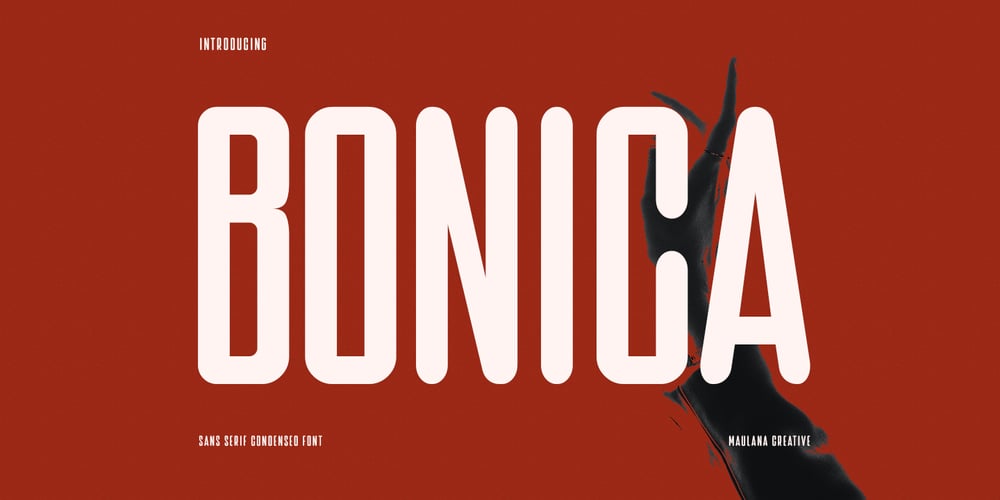
MC Bonica
MC Bonica font
MC Bonica Font Family was designed by Gilang Maulana and published by Maulana Creative. MC Bonica contains 1 styles and family package options. Bonica is a casual modern condesned sans serif font. With medium low contrast stroke, fun character with a bit of ligatures and alternates. To give you an extra creative work. Bonica font support multilingual more than 100+ language. This font is good for logo design, Social media, Movie Titles, Books Titles, a short text even a long text letter and good for your secondary text font with sans or serif. Make a stunning work with Bonica font. Cheers, Maulana Creative